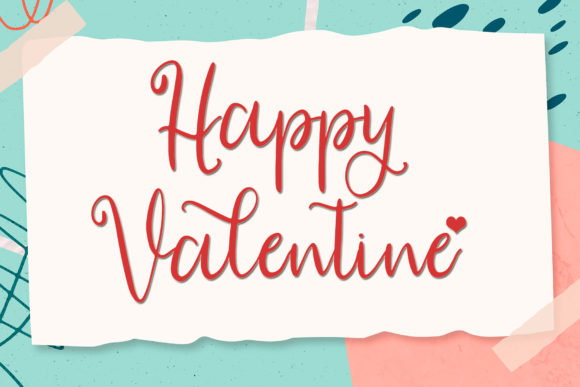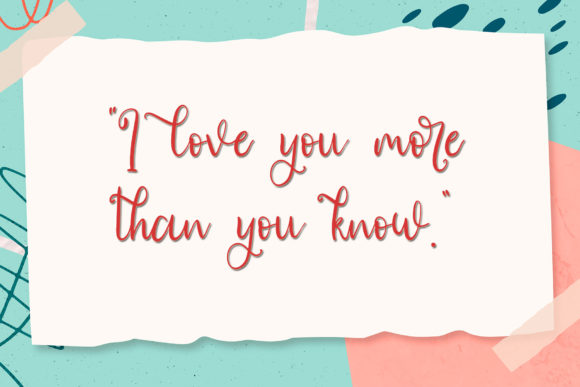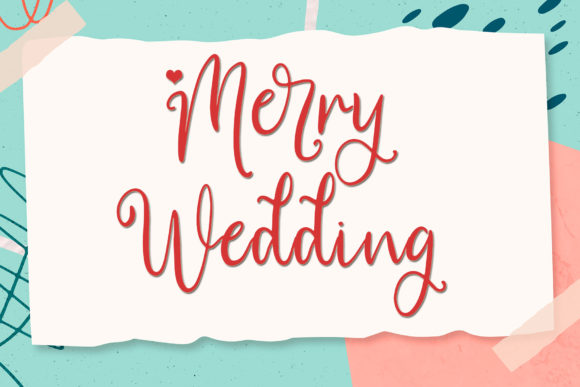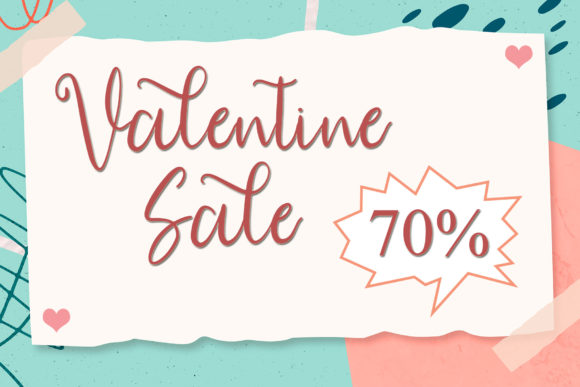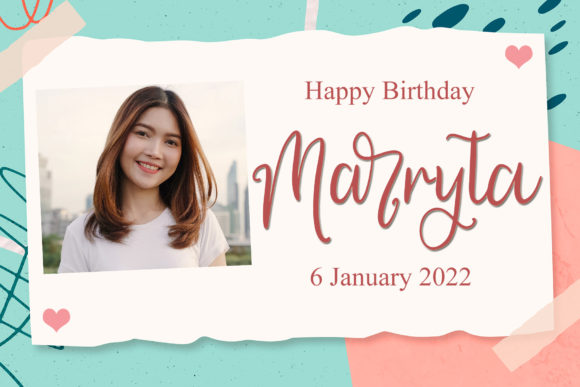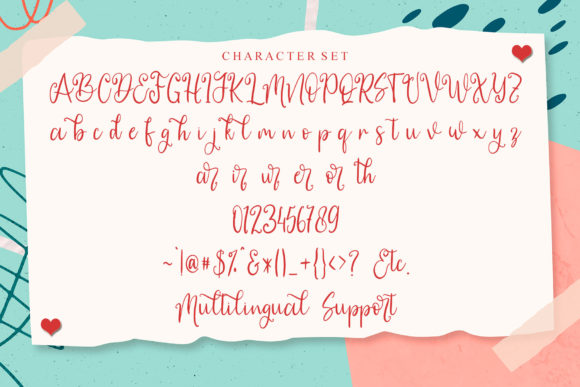
Berrylove Font: A Charming Script Font for Designers and Crafters
Are you looking for a font that can add a touch of playfulness and charm to your designs? Look no further than Berrylove Font! This lovely script font features charming, playful characters that seem to dance along the baseline, making it perfect for a variety of design projects. In this article, we’ll take a closer look at Berrylove Font, its features, and how you can use it to elevate your designs.
What is Berrylove Font?
Berrylove Font is a script font that is designed to add a touch of whimsy and playfulness to your designs. It features charming, cursive characters that are connected in a flowing manner, giving it a sense of movement and energy. The font is perfect for designs that require a personal touch, such as invitations, greeting cards, and social media graphics.
Key Features of Berrylove Font
So, what makes Berrylove Font so special? Here are some of its key features:
- PUA Encoded: Berrylove Font is PUA (Private Use Area) encoded, which means that you can access all of the glyphs and swashes with ease. This makes it easy to use the font in your designs, even if you’re not a professional typographer.
- Charming Characters: The font features charming, playful characters that seem to dance along the baseline. Each character is carefully designed to add a touch of personality to your designs.
- Script Font: Berrylove Font is a script font, which means that it’s perfect for designs that require a personal touch. The font is ideal for invitations, greeting cards, and social media graphics.
- Easy to Use: Berrylove Font is easy to use, even if you’re not a professional designer. The font comes with a user-friendly interface that makes it easy to access all of the glyphs and swashes.
How to Use Berrylove Font in Your Designs
So, how can you use Berrylove Font in your designs? Here are some ideas to get you started:
- Invitations: Use Berrylove Font to create beautiful invitations for weddings, birthday parties, and other special occasions.
- Greeting Cards: The font is perfect for creating greeting cards for holidays, birthdays, and other special occasions.
- Social Media Graphics: Use Berrylove Font to create eye-catching social media graphics that will help you stand out from the crowd.
- Branding: The font can also be used for branding purposes, such as creating logos and business cards.
Benefits of Using Berrylove Font
So, why should you use Berrylove Font in your designs? Here are some of the benefits of using this lovely script font:
- Unique Look: Berrylove Font has a unique look that will help you stand out from the crowd. The font is playful, charming, and whimsical, making it perfect for designs that require a personal touch.
- Easy to Read: The font is easy to read, even at small sizes. This makes it perfect for designs that require a lot of text, such as social media graphics and blog posts.
- Versatile: Berrylove Font is a versatile font that can be used in a variety of design projects. It’s perfect for invitations, greeting cards, social media graphics, and more.
Tips for Using Berrylove Font
Here are some tips for using Berrylove Font in your designs:
- Use it Sparingly: Berrylove Font is a playful font, so it’s best to use it sparingly. Use it for headings and titles, and a more traditional font for body text.
- Experiment with Colors: The font looks great in a variety of colors, so don’t be afraid to experiment. Try using different colors and gradients to add depth and interest to your designs.
- Pair it with Other Fonts: Berrylove Font can be paired with other fonts to create a unique look. Try pairing it with a traditional font for a contrasting look.
| Font Name | Berrylove Font |
Berrylove Font is a lovely script font that is perfect for designers and crafters who want to add a touch of playfulness and charm to their designs. With its charming characters, PUA encoding, and easy-to-use interface, it’s a great choice for a variety of design projects. Whether you’re creating invitations, greeting cards, or social media graphics, Berrylove Font is a great choice. So why not give it a try and see what you can create?